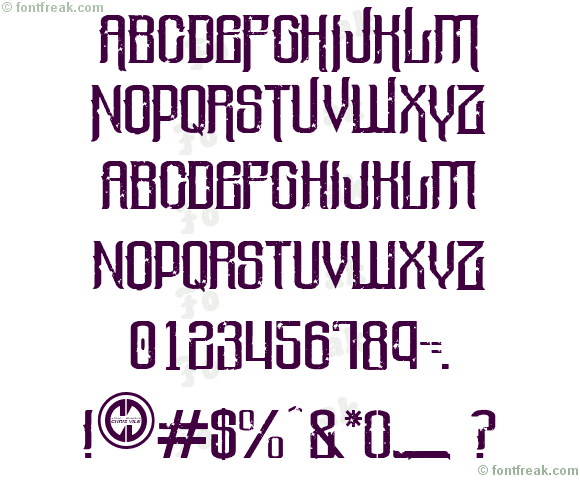
Valley Of Elah
Valley Of Elah, designed by Chris Vile, is a striking display font that captures attention with its unique aesthetic. This font belongs to the decorative category, characterized by its bold stroke weight and distinctive, rugged appearance. The letters exhibit a strong contrast, with thick and thin strokes that create a dynamic visual impact. The spacing between characters is well-balanced, allowing for easy readability while maintaining an artistic flair. Decorative elements, such as subtle distressing and irregularities, give the font a handcrafted feel, making it ideal for projects that require a touch of personality.
The Valley Of Elah font is a versatile choice for a variety of creative applications. It shines in contexts such as movie posters, where its boldness can evoke strong emotions and capture the essence of cinematic storytelling. Additionally, it works beautifully for restaurant menus, providing a unique character that can enhance the dining experience. Graphic designers can also use it for branding efforts, especially for businesses looking to convey a rugged or adventurous identity. It’s perfect for event invitations, especially those with a rustic or vintage theme, adding an element of charm and authenticity.
What sets Valley Of Elah apart is its ability to blend boldness with character, allowing it to stand out in any design. Its unique style and versatility make it a valuable addition to any designer's toolkit, ensuring that it will leave a lasting impression on viewers.